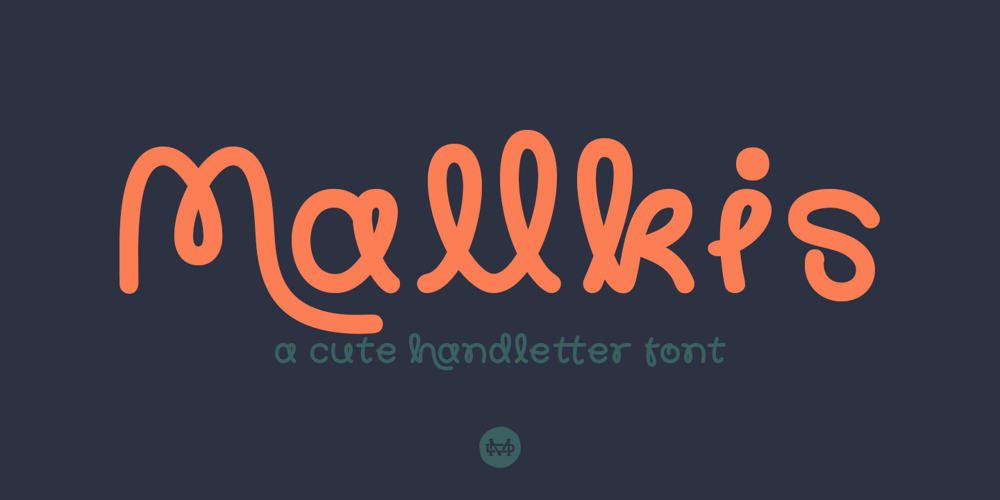
Mallkis Font Family was designed by Suandana ipandemade and published by madeDeduk. Mallkis contains 1 styles and family package options. Mallkis is a cute handlettering font, playful with this font has the potential to bring each of your creative ideas. Combine with standard and special glyphs so you can create a lot with layouts and compositions. Mallkis brings a touch of custom typography to logos, websites, social media quotes, wedding branding, and more.Whats Included ? Uppercase & Lowercase Number & Symbol International Glyphs Multilingual support Feature Uppercase Lowercase Number & Symbol International Glyphs Alternative Ligature Thank you so much for checking out my shop, and please get in touch if you have any questions! at: dedukvic@gmail.com